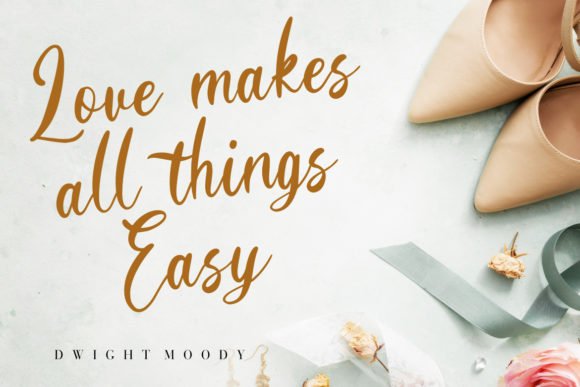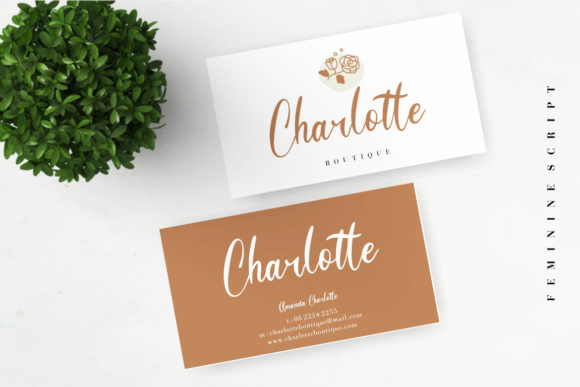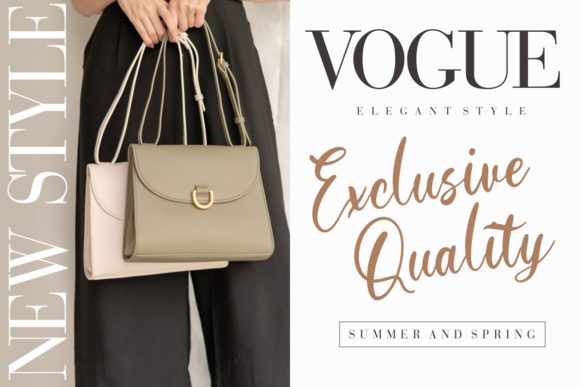
Introduction to Hanessy Font
Hanessy is a flowing handwritten font, described by an elegant touch, perfect for your favorite projects.
Key Features of Hanessy Font
Why Choose Hanessy Font?
Hanessy Font offers exceptional quality and versatility, making it a valuable addition to your design toolkit. Whether you’re creating for personal projects or commercial use, Hanessy Font delivers professional results.